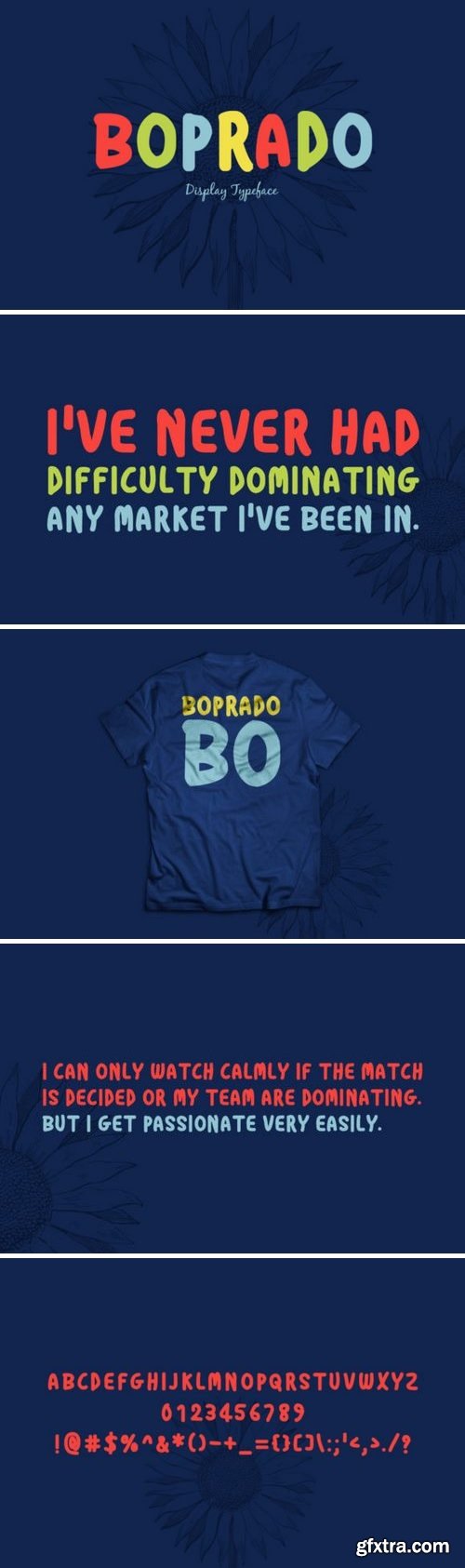
Boprado Font
The Boprado is a brand new display font. It has a fun and playful style which is perfectly suited for stationery, logos, t-shirts, papers, print designs, website headers, photo frames, flyers, music covers, posters, image sliders, and much more.